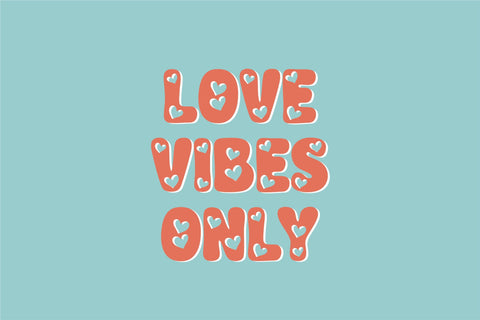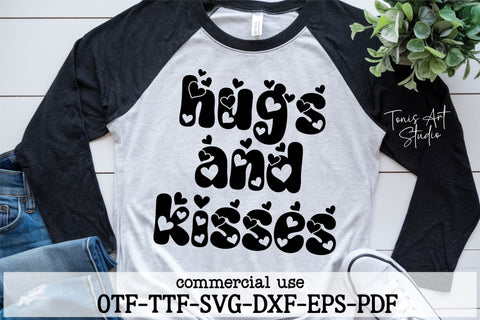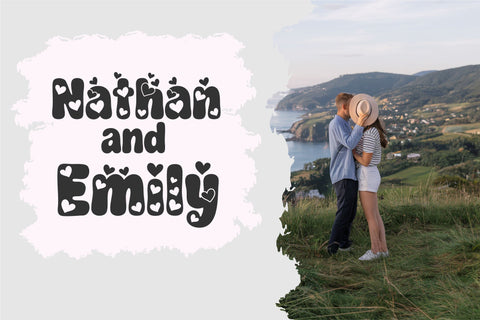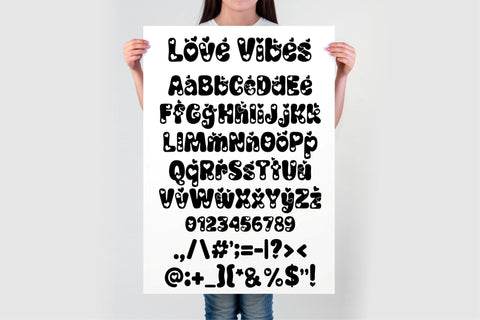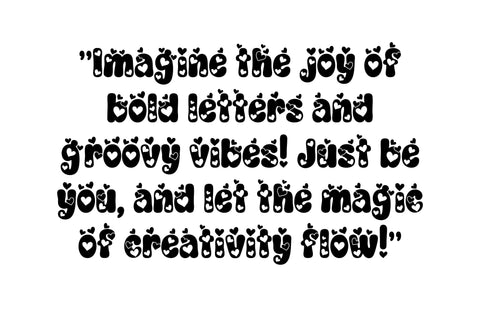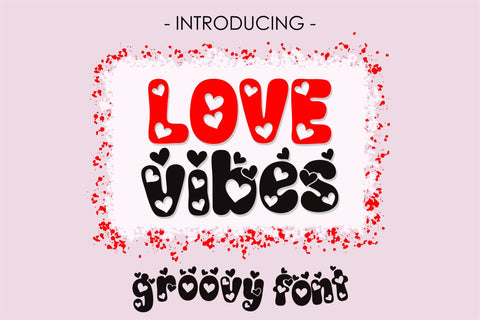
Love Vibes Font – A Groovy, Heart-Filled Typeface for Romantic & Retro Designs!
The Love Vibes Font is a playful, bubbly, and groovy typeface filled with heart accents, designed to add a sweet and retro touch to your creative projects! Perfect for Valentine's Day, weddings, love notes, and all things cute and romantic, this bold font is ideal for crafters, designers, and DIY enthusiasts using Cricut, Silhouette, Procreate, and Canva.
With its chunky, hand-drawn lettering and adorable heart details, Love Vibes is perfect for adding charm to t-shirts, mugs, greeting cards, social media graphics, stickers, and more. Whether you're designing a love-themed project or just want a fun, bold typeface, this font is a must-have in your collection!
✔ Full Character Set – A-Z letters, numbers, and essential symbols.
Perfect For:
✨ Cricut & Silhouette Crafting
✨ Procreate Lettering & Digital Designs
✨ Valentine's Day & Wedding Projects
✨ Stickers, Sublimation, & T-Shirts
✨ Social Media Graphics & Quotes